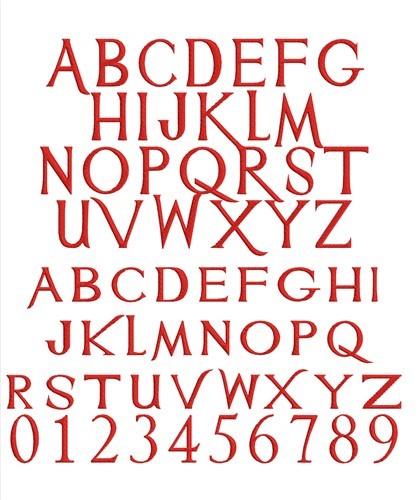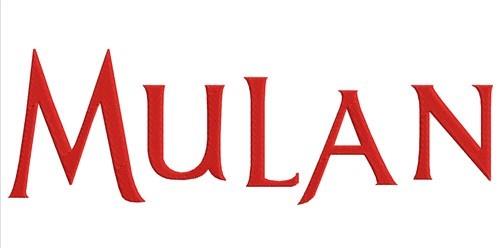
Easy Embroidery is happy to present Mulan machine embroidery font which has Bold decorative machine embroidery font that captures a fantasy adventure style, perfect for stitching on garments and bags. Available in PES, DST, and 11 other formats for versatile projects. included. If you would like to view more embroidery fonts and alphabets please search our embroidery fonts page.